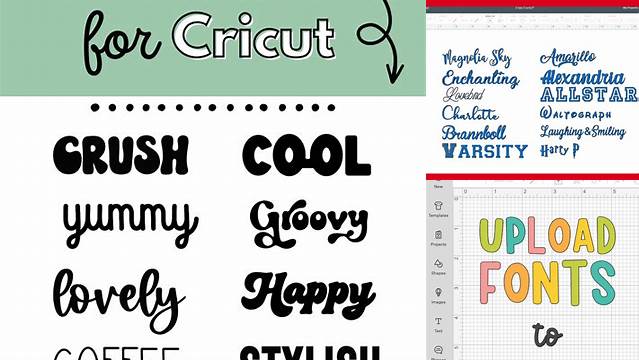
Cricut Design Space Fonts: Your PDF Guide & Tips
Hey guys! Ever felt lost in the world of Cricut Design Space fonts? It can be a bit overwhelming, right? Finding the perfect font can make or break your project, whether it's a personalized birthday card or a snazzy t-shirt design. So, let’s dive into the wonderful world of Cricut fonts, focusing on how to manage them effectively, especially when you need a Cricut Design Space font list PDF. We'll explore everything from system fonts to Cricut Access fonts, and even how to upload your own! Let's get started and turn those font frustrations into fontastic creations!
1. Understanding Cricut Design Space Fonts
Let's kick things off by understanding the basics. When we talk about Cricut Design Space fonts, we're really talking about a variety of font types. There are system fonts, which are those fonts already installed on your computer or device. Then there are Cricut fonts, which come with a Cricut Access subscription or can be purchased individually. Knowing the difference is key because it affects how you can use the fonts and whether you need to pay extra for them. System fonts are usually free to use, while Cricut fonts might require a subscription or purchase. Understanding these distinctions will help you navigate the font selection process more efficiently and make sure you're using fonts that fit your budget and creative needs. The right font can elevate your project, making it look professional and polished, so it’s worth taking the time to understand your options.
2. System Fonts vs. Cricut Fonts: A Detailed Comparison
Okay, let’s get down to the nitty-gritty of system fonts versus Cricut fonts. System fonts are those trusty typefaces that come pre-installed on your computer or device, whether you're using Windows, macOS, iOS, or Android. These fonts are usually free to use across different applications, including Cricut Design Space. On the other hand, Cricut fonts are fonts that are either included with a Cricut Access subscription or available for individual purchase through Cricut’s platform. Think of Cricut Access like a Netflix for fonts – you pay a monthly or annual fee for access to a vast library. The main advantage of system fonts is that they're already available, saving you the cost of purchasing new fonts. However, Cricut fonts often offer unique styles and designs that might not be available as system fonts. Also, Cricut fonts are specifically optimized for use with Cricut machines, which can make your cutting and weeding process smoother. Choosing between system fonts and Cricut fonts really depends on your budget, your design needs, and how often you plan to use different fonts. Understanding the strengths and limitations of each type will help you make the best choice for your projects.
3. Creating a Cricut Design Space Font List PDF
Now, let's talk about organizing your font collection. Creating a Cricut Design Space font list PDF can be a lifesaver when you're trying to keep track of all your fonts. Imagine having a visual guide that shows you exactly what each font looks like without having to scroll through the Design Space interface! There are a few ways to create this PDF. One method is to manually create a document in a word processor like Microsoft Word or Google Docs. Type out each font name and then display it using the font itself. This gives you a clear visual representation. Another way is to take screenshots of your font list in Design Space and compile them into a PDF. There are also third-party tools and websites that can help you generate a font list PDF automatically. Having a PDF font list is super handy because you can quickly browse through your options offline, share it with friends or clients, and even print it out for easy reference in your craft room. It's a simple way to stay organized and make your design process more efficient.
4. Step-by-Step Guide to Exporting Fonts from Cricut Design Space
Unfortunately, Cricut Design Space doesn’t offer a direct way to export a list of your fonts. That's why creating a Cricut Design Space font list PDF manually or using third-party tools is so important! While you can't export directly, you can still create an organized list. To do this, open Design Space and make a note of your installed fonts. You can then use this information to build your PDF. Start by creating a document in a word processor or spreadsheet program. List each font name and, if you're using a word processor, display the name in the font itself for a visual reference. If you have a large font collection, consider organizing your list by font type (e.g., script, serif, sans-serif) or by project type (e.g., cards, vinyl decals). This will make it easier to find the perfect font when you need it. Remember, the goal is to have a quick and easy way to see all your font options at a glance, even when you’re not in Design Space. So, even though the process is manual, the time you invest in creating your font list will pay off in the long run.
5. Managing Your Font Collection in Cricut Design Space
Managing your font collection in Cricut Design Space can feel like a Herculean task if you've got a ton of fonts! But don’t worry, there are some cool tricks to keep things organized. One of the best ways is to use the font filtering options within Design Space. You can filter fonts by category (like “Cricut” or “System”) or use the search bar to quickly find a specific font. Another helpful tip is to favorite the fonts you use most often. This way, they’ll appear at the top of your font list, saving you time scrolling through everything else. If you’re using system fonts, consider organizing them on your computer as well. Creating folders for different font types can make it easier to find them both within and outside of Design Space. Also, remember that having too many fonts installed can actually slow down your computer and Design Space. So, it’s a good idea to periodically review your font collection and uninstall any fonts you don’t use anymore. Keeping your font library tidy will not only make your design process smoother but also improve the overall performance of your system. Think of it as Marie Kondo-ing your fonts – only keep what sparks joy!
7. Troubleshooting Font Issues in Cricut Design Space
Font issues in Cricut Design Space can be super frustrating, but don't worry, we've all been there! One common issue is that a font you installed on your computer doesn't show up in Design Space. Usually, this is because Design Space was open when you installed the font. The fix is simple: just close and reopen Design Space, and your new font should appear in the list. Another issue is that certain fonts might not cut correctly, especially script fonts with overlapping letters. In this case, you might need to weld the letters together in Design Space to create a single, continuous cut path. If you’re having trouble with a specific font, try searching online forums or Cricut support for solutions. Chances are, someone else has encountered the same issue and found a workaround. And remember, if all else fails, restarting your computer can often do the trick! Troubleshooting font issues might seem like a pain, but once you get the hang of it, you’ll be able to handle them like a pro. Keeping calm and systematically trying different solutions is the key to success.
8. Best Websites for Downloading Free Fonts
Who doesn’t love free fonts? Seriously, they’re a crafter’s best friend! There are tons of websites out there where you can download free fonts for your Cricut projects. But, it’s crucial to make sure you’re downloading from reputable sources to avoid viruses or fonts that aren’t licensed for commercial use. Some of the most popular and trusted websites include DaFont, FontSpace, and Google Fonts. DaFont has a massive selection of fonts, and you can easily filter by license type (e.g., free for personal use, free for commercial use). FontSpace is another great resource with a wide variety of fonts and a user-friendly interface. Google Fonts is excellent because all the fonts are open-source and free to use for any purpose, plus they’re designed to look great on screens. When downloading fonts, always double-check the license to make sure you’re allowed to use the font for your intended purpose, especially if you plan to sell your creations. With a little caution, you can build a fantastic font library without spending a dime. So, go ahead and explore these sites and find some new favorites!
14. Handwritten Fonts for a Personal Touch
For a personal and intimate feel, handwritten fonts are an excellent choice. These fonts mimic the look of natural handwriting, adding a touch of warmth and authenticity to your projects. They can range from elegant calligraphy styles to playful, casual scripts, making them incredibly versatile. Handwritten fonts are perfect for projects where you want to convey a sense of personal connection, such as greeting cards, handwritten notes, or personalized gifts. They can also be used to create a cozy and inviting atmosphere in home décor projects. In Cricut Design Space, handwritten fonts can sometimes present challenges, especially those with delicate lines or intricate loops. It's important to choose a font that cuts cleanly and is easy to weed. As with script fonts, you may need to use the